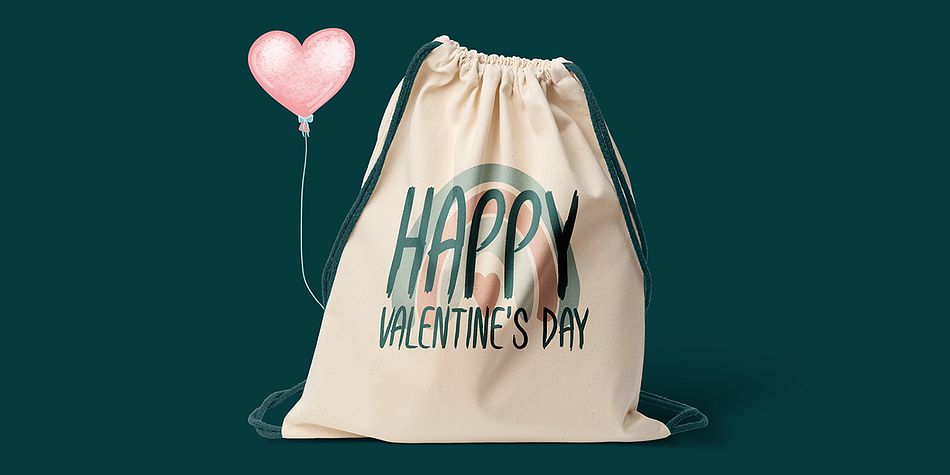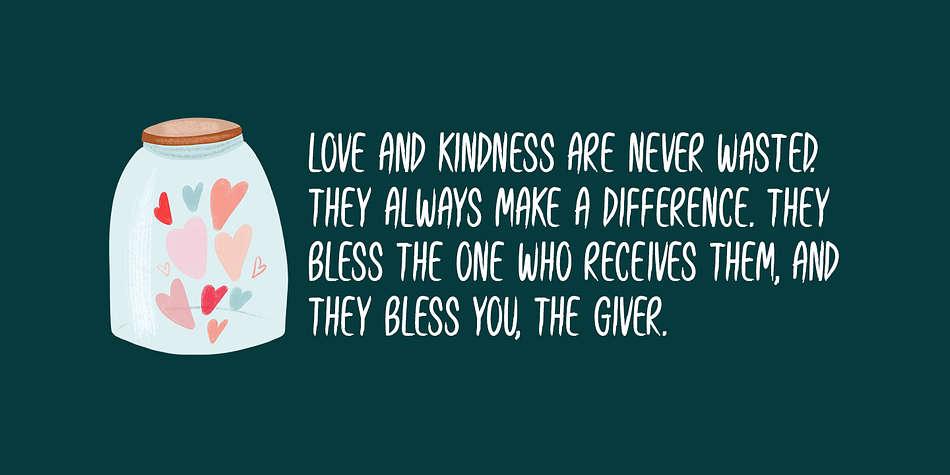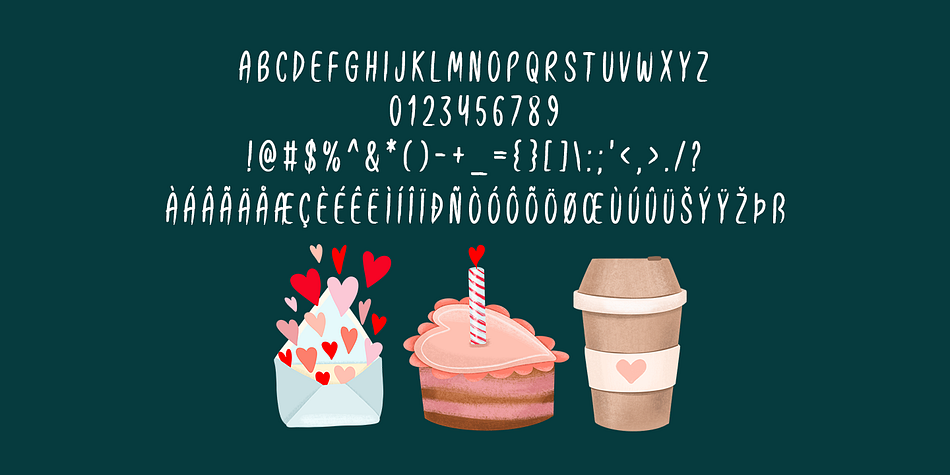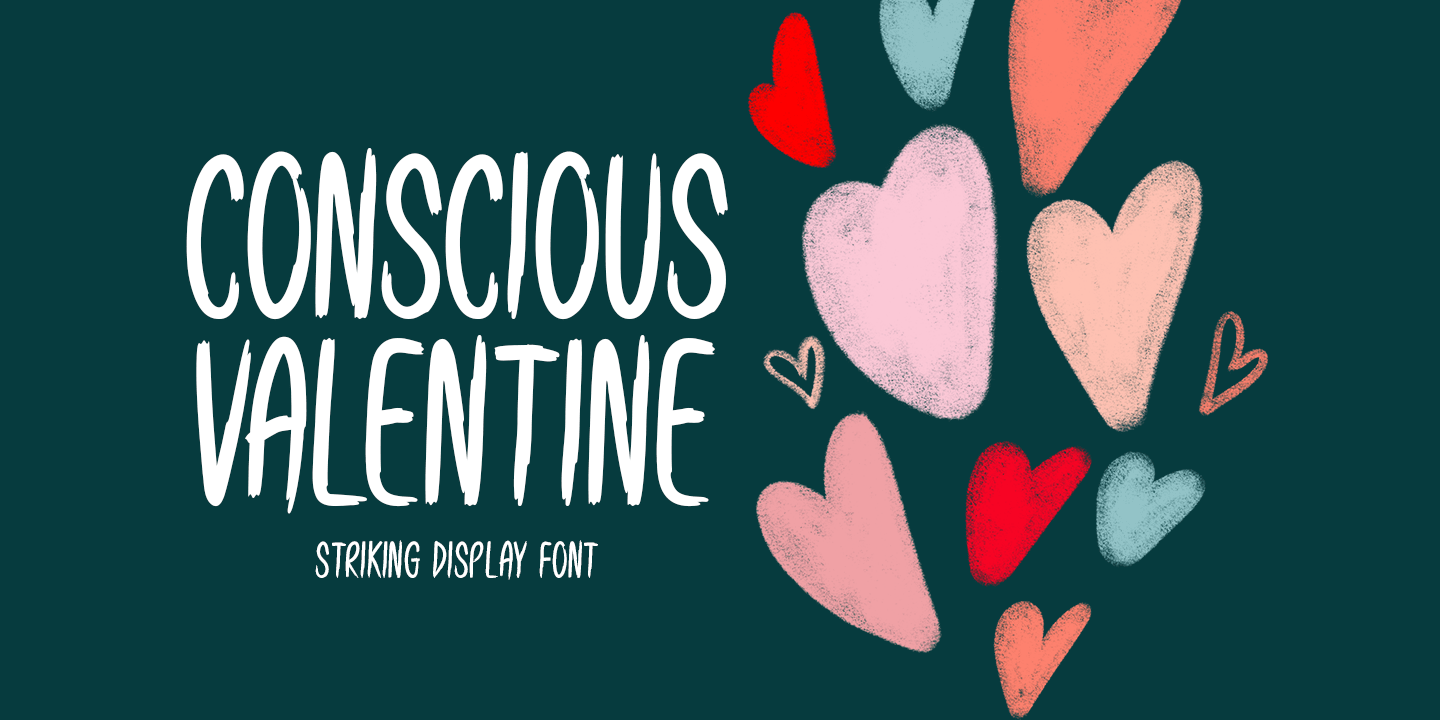
CONSCIOUS VALENTINE
Designed by Md. Shohail Bhuiyan, Conscious Valentine is a brush display and display sans font family published by Seemly Fonts.
Conscious Valentine is a brand new, brushed display font. Conscious Valentine is perfectly suited for stationery, logos, t-shirts, paper, print design, website headers, photo frames, flyers, music covers, posters, image sliders, and much more.